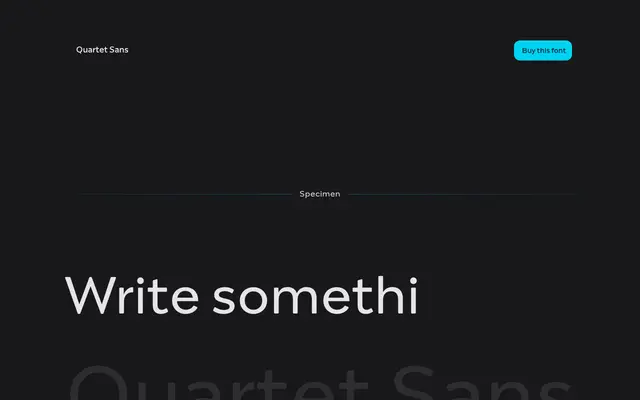
Quartet Sans
Capitalics · Mateusz Machalski
A four-weight sans-serif family from Capitalics designer Mateusz Machalski, offered in regular through bold with matching italics for branding and editorial use.
Eight styles span Regular, Medium, SemiBold and Bold, each with a matching italic, giving the family a practical range for branding and text work. Designed by Mateusz Machalski, co-founder of Capitalics and a branding specialist, the family carries a professional, contemporary character suited to identity and interface contexts. Available individually or as a complete family at a bundled price.
The name and specimen presentation suggest a clean, contemporary sans-serif; without strong geometric or grotesque characteristics evident, a humanist sans classification is most fitting for a branding-oriented design from this foundry.